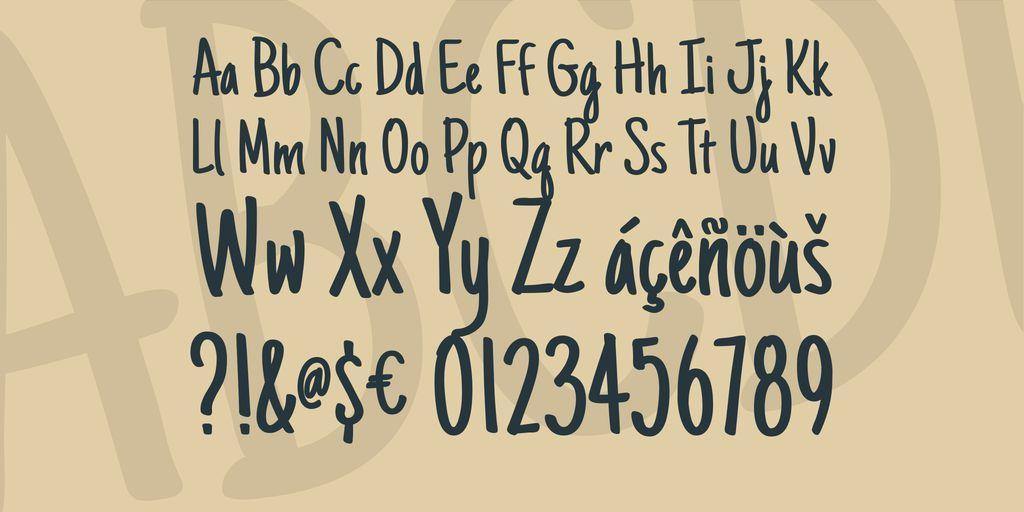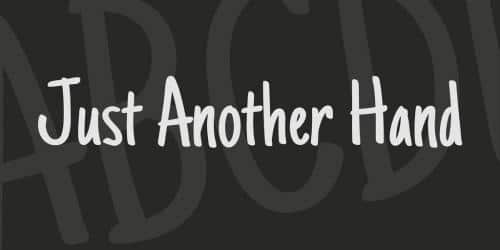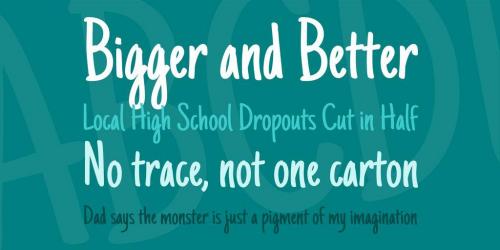
My personal handwriting has changed a number of times over the years. Just Another Hand is a narrow brush drawn handwriting font, inspired by the handwriting of my high school days. There’s a little artistic license taken with Just Another Hand in the sense that while I never really wrote with a brush in high school, I wanted a cleaner stroke for this interpretation.
A little personality, a little restraint… a style that works for all sorts of projects across the board.
- Designer: Astigmatic